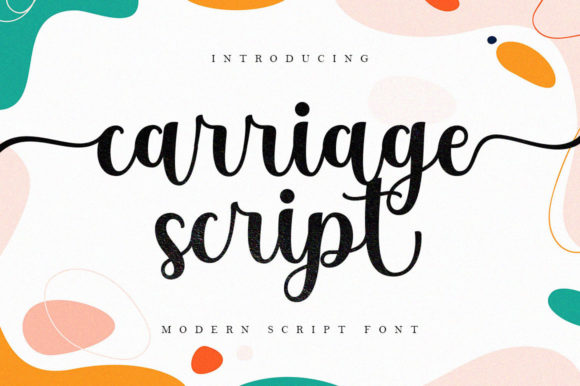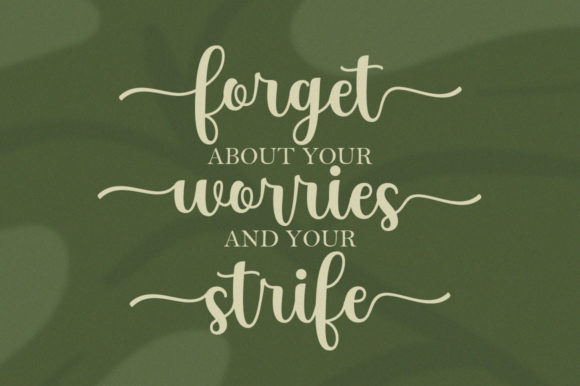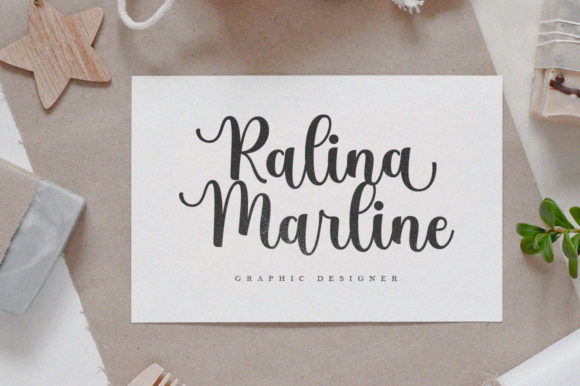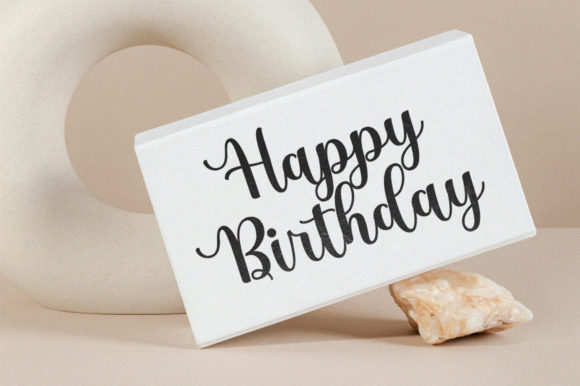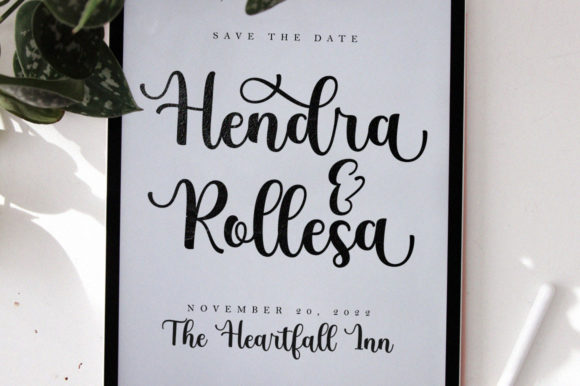
About Carriage Script Font
Introducing “Carriage Script,” a delicate and stylish script font that adds a touch of elegance to your designs.
With its graceful and flowing characters, Carriage Script brings a sense of sophistication to any project. Whether you’re working on logos, branding, labels, invitations, or any other creative endeavor, this font is designed to elevate your work and capture attention.
One of the standout features of Carriage Script is its PUA encoding, which grants you easy access to a wide range of glyphs and swashes. This allows you to customize your text and add unique flourishes, giving your designs a personalized and artistic touch.
Imagine using Carriage Script for your next branding project. Its delicate curves and stylish appearance will make your logo or business name stand out, leaving a memorable impression on your audience.
Carriage Script is also a perfect choice for elegant invitations and event materials. Whether it’s a wedding, gala, or special occasion, this font exudes a sense of refinement that complements the atmosphere of any event.
With its versatility and PUA encoding, Carriage Script is a valuable addition to your font library. You can confidently add this font to your projects, knowing that it will bring a touch of sophistication and style to your designs, leaving you impressed with the final results.